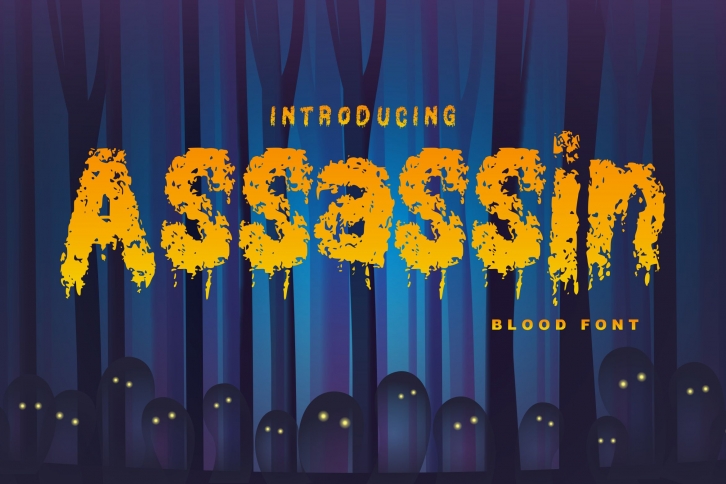
Assassin is a beautiful font that was designed by Vunira. It's a great choice for designers and creatives who need such a font. It was released on October 15, 2019 and the file size is 7.76 MB. Assassin may give a more youthful, expressive and casual look to your project. It is a very beautiful, refined, elegant, and high-quality font.